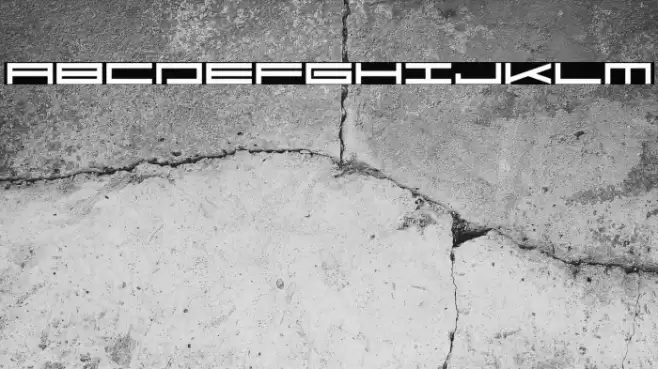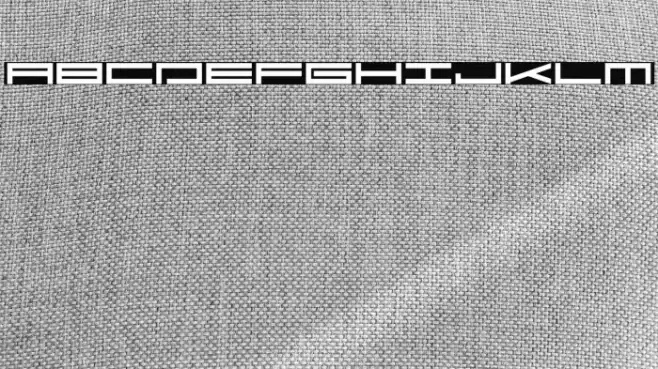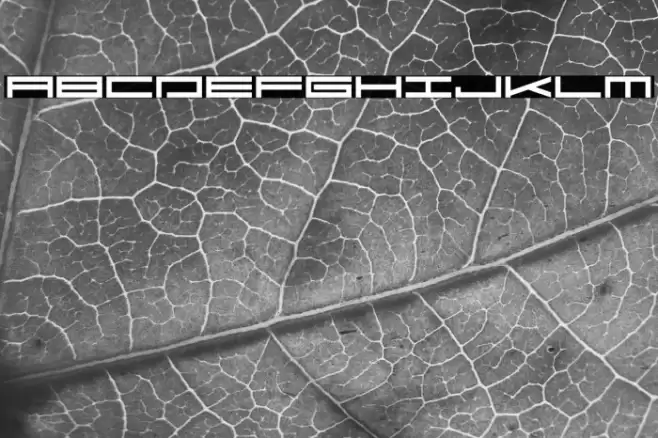
Steelbase Font
Steelbase Description
This font features a futuristic and geometric design, characterized by sharp angles and a consistent stroke width. The uppercase letters are bold and striking, with a mechanical feel that suggests strength and precision. The absence of curves and the presence of straight lines give it a distinctly modern and industrial appearance. The font's structure is uniform, with each character maintaining a similar height and width, contributing to a cohesive and balanced look. The design is ideal for projects that require a bold and assertive typeface, such as technology branding, video game titles, or sci-fi themed materials.
A futuristic, geometric font with sharp angles and a mechanical feel from Uncategorized fonts.
- Proposed Projects: Ideal for technology branding, video game titles, sci-fi themes, and industrial design projects.